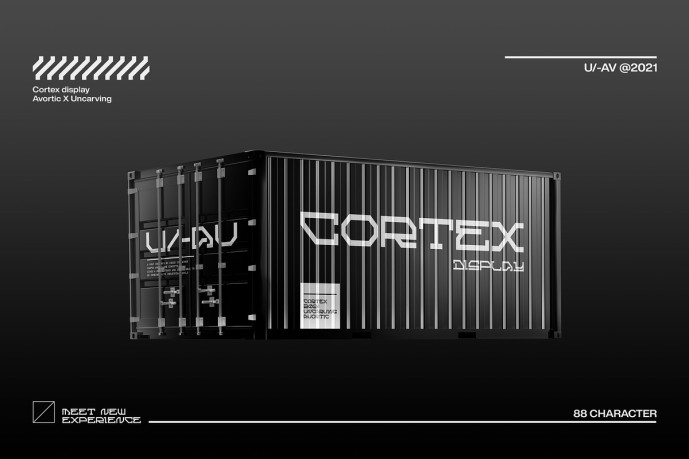
Cortex – Display Font
Designer: Uncarving
Cortex – Display Font is a font designed by Uncarving and Avortic. Inspired by rigid container shapes and futuristic concepts, it delivers a strong modern look with an industrial edge. Its structured and bold character makes it especially suitable for designs that pair well with industrial models and contemporary visuals. Cortex can be used for commercial purposes; however, it may not be shared on websites or distributed to other computers without permission from Uncarving and Avortic.